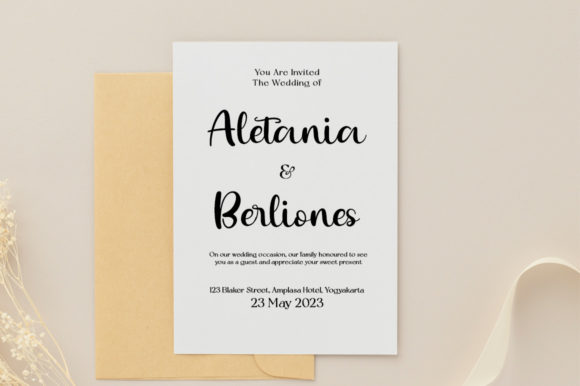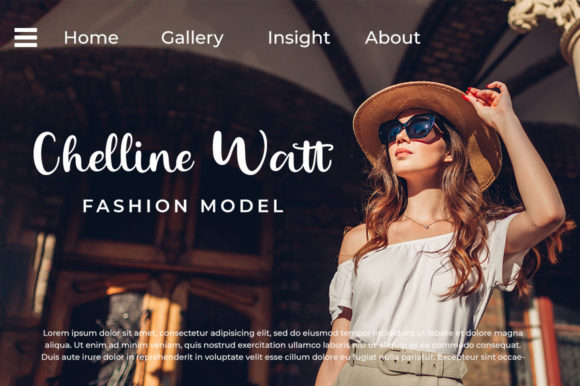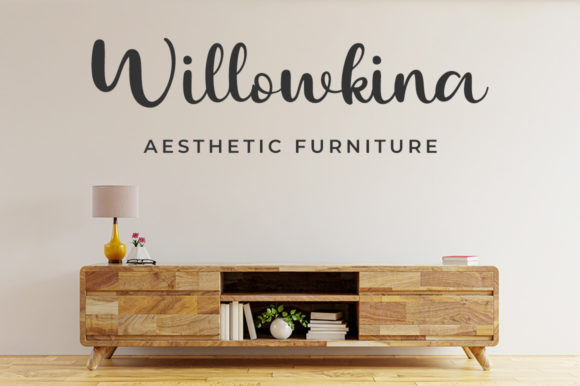
Introduction to Shailena Font
Have you ever been in the middle of a creative project, staring at a blank page or screen, and suddenly a spark of inspiration hits you? For designers, that moment is like finding the perfect treasure – it’s a game-changer. But what makes it even more magical is when you have the right tools to bring your vision to life. One such tool is the Shailena Font, a modern and flowing script font that’s perfect for crafters and designers alike.
This beautiful font is a design resource that can elevate your projects to the next level. With its high-quality design, you can add a touch of elegance and sophistication to your work. Whether you’re creating digital art, crafting custom invitations, or designing a logo, Shailena Font is an excellent choice. And the best part? It’s available for free download, making it a valuable addition to any designer’s toolkit.
- High-quality, professional font design ideal for creative projects and designs.
- Unique, elegant design with a transparent background, allowing for versatility in design applications.
- Perfect for use in digital designs, including logos, branding, and typography, due to its clean and modern aesthetic.
Honest Review: Shailena Font
As a designer, I’m always on the lookout for high-quality design resources that can elevate my creative projects. The Shailena Font is one such resource that caught my attention recently. In this review, I’ll share my honest thoughts on what works well and what doesn’t.
- Unique and elegant design style that’s perfect for creative projects
- Only available in a few font styles, which might limit its versatility
Overall, the Shailena Font is a great addition to any designer’s toolkit. While it has some limitations, its unique design style and high-quality font files make it a valuable resource for creative projects. With a bit of creativity, you can work around its limitations and create stunning designs. I’d definitely recommend it to fellow designers looking for a free and high-quality font resource.
The Shailena Font is ideal for various creative projects, including digital art, graphic design, and typography-based designs. Its transparent background makes it a versatile design resource that can be used in a range of applications.